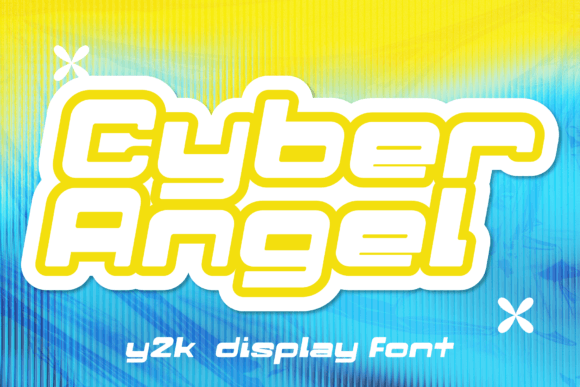
Cyber Angel Font: A Futuristic Typeface for the Digital Age
In the world of typography, fonts play a crucial role in conveying the tone and personality of a brand or design. With the rapid evolution of technology, designers are constantly on the lookout for innovative and futuristic typefaces that can capture the essence of the digital age. One such font that has gained significant attention in recent years is the Cyber Angel Font. In this article, we’ll delve into the world of Cyber Angel, exploring its features, benefits, and applications, as well as its potential to elevate your designs to new heights.
What is Cyber Angel Font?
Cyber Angel is a powerful and futuristic typeface that embodies the cutting-edge spirit of the 2000s. Its sleek lines and angular curves evoke the speed and energy of the digital age, while its bold, sans-serif letters communicate confidence and strength. This font is perfect for designers looking to add a touch of sci-fi flair to their projects, whether it’s a website, a logo, or a product label.
Benefits of Using Cyber Angel Font
With Cyber Angel, you’ll be able to create designs that are both nostalgic and forward-thinking, inspiring awe and admiration in all who see them. Here are some benefits of using Cyber Angel Font in your designs:
- Uniqueness: Cyber Angel’s distinctive design sets it apart from more traditional fonts, making it perfect for designers looking to create unique and memorable designs.
- Versatility: This font can be used in a wide range of applications, from digital projects like websites and social media graphics to print materials like brochures and posters.
- Legibility: Cyber Angel’s bold and sans-serif design ensures that your text is easy to read, even at small sizes.
- Customization: With its wide range of weights and styles, Cyber Angel can be tailored to suit your design needs.
Applications of Cyber Angel Font
Cyber Angel’s futuristic design makes it perfect for a wide range of design applications, including:
- Web Design: Use Cyber Angel to create striking website headers, buttons, and other UI elements that will grab your visitors’ attention.
- Logo Design: Create a memorable and impactful logo for your brand with Cyber Angel’s bold and futuristic design.
- Product Labeling: Add a touch of sci-fi flair to your product labels with Cyber Angel’s sleek and modern design.
- Advertising: Use Cyber Angel to create eye-catching ad graphics that will stand out from the crowd.
Typography Tips for Using Cyber Angel Font
To get the most out of Cyber Angel, here are some typography tips to keep in mind:
- Pair with contrasting fonts: Combine Cyber Angel with a contrasting font to create visual interest and hierarchy in your design.
- Experiment with colors: Cyber Angel looks great in bold and bright colors, so don’t be afraid to experiment with different color schemes.
- Use varying weights: Use different weights and styles of Cyber Angel to create visual hierarchy and add depth to your design.
Inspiration from the Digital Age
Cyber Angel’s futuristic design is inspired by the cutting-edge technology of the 2000s. Here are some design trends and styles that may inspire your use of Cyber Angel:
- Sci-Fi: Draw inspiration from sci-fi movies and games to create futuristic designs that transport your audience to another world.
- Neon: Incorporate neon colors and effects into your design to create a bold and eye-catching look.
- Minimalism: Balance Cyber Angel’s bold design with minimalist elements to create a clean and modern look.
Best Practices for Using Cyber Angel Font
To ensure that your designs look their best, here are some best practices to keep in mind when using Cyber Angel:
- Use in moderation: While Cyber Angel is a striking font, it can be overwhelming if overused. Balance it with other fonts and design elements to create a visually appealing design.
- Consider your audience: Make sure that Cyber Angel aligns with your brand’s tone and personality, as well as your target audience’s preferences.
- Test and iterate: Test your design with different variations of Cyber Angel and iterate on your design to ensure that it looks its best.
Cyber Angel Font is a powerful and futuristic typeface that can elevate your designs to new heights. With its sleek lines, angular curves, and bold sans-serif letters, this font is perfect for designers looking to add a touch of sci-fi flair to their projects. By following the design tips and best practices outlined in this article, you’ll be able to unlock the full potential of Cyber Angel and create designs that inspire awe and admiration.